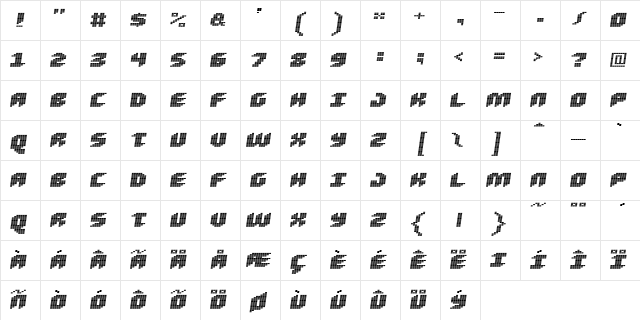
Loud noise Skew Regular
Loud noise Skew Family
Design Context for Loud noise Skew
Loud noise Skew is a composed and adaptable typeface that performs quietly and consistently across a wide range of design contexts.